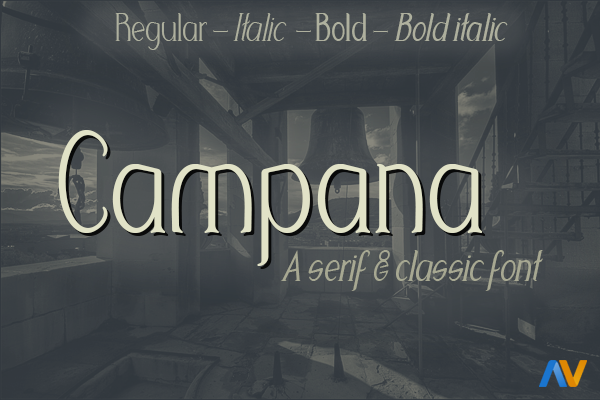
Campana
A serif and classic font for a design purposes. Campana is a font created by Alberto Villanueva 2016. 4 fonts: Regular, Regular italic, Bold, Bold italic. Added web fonts.